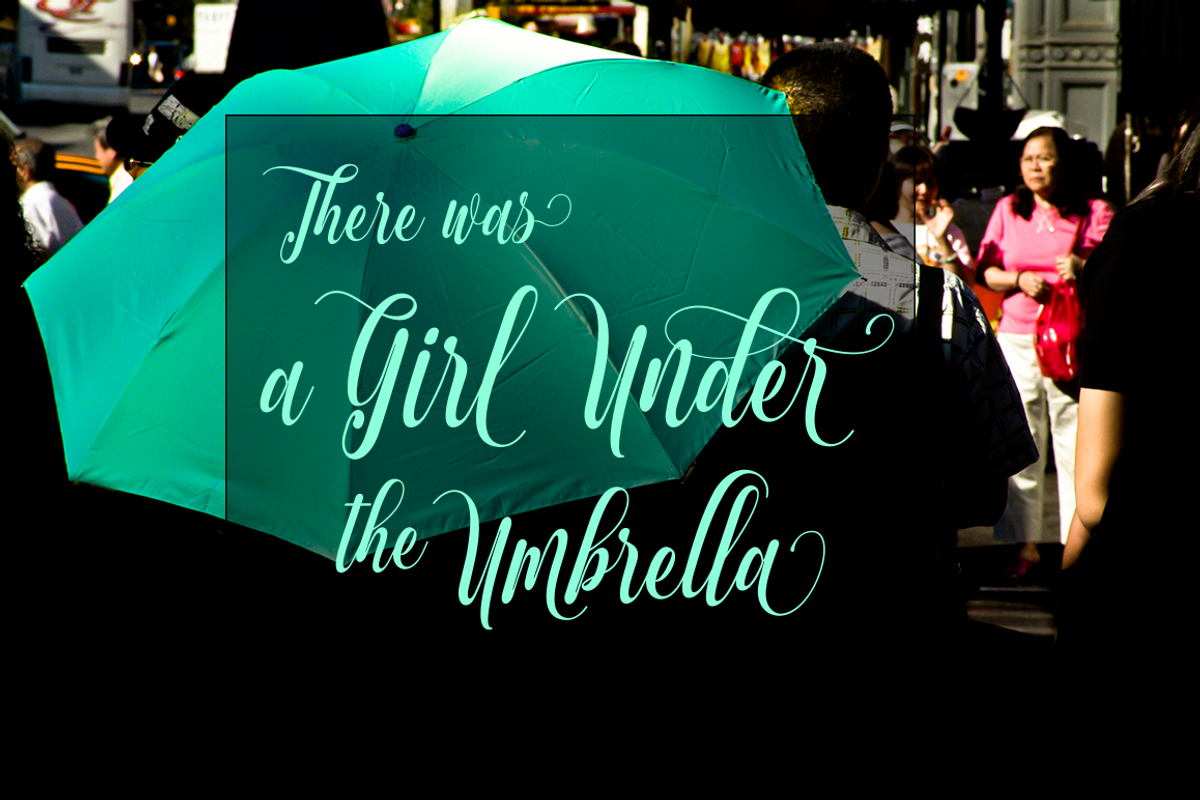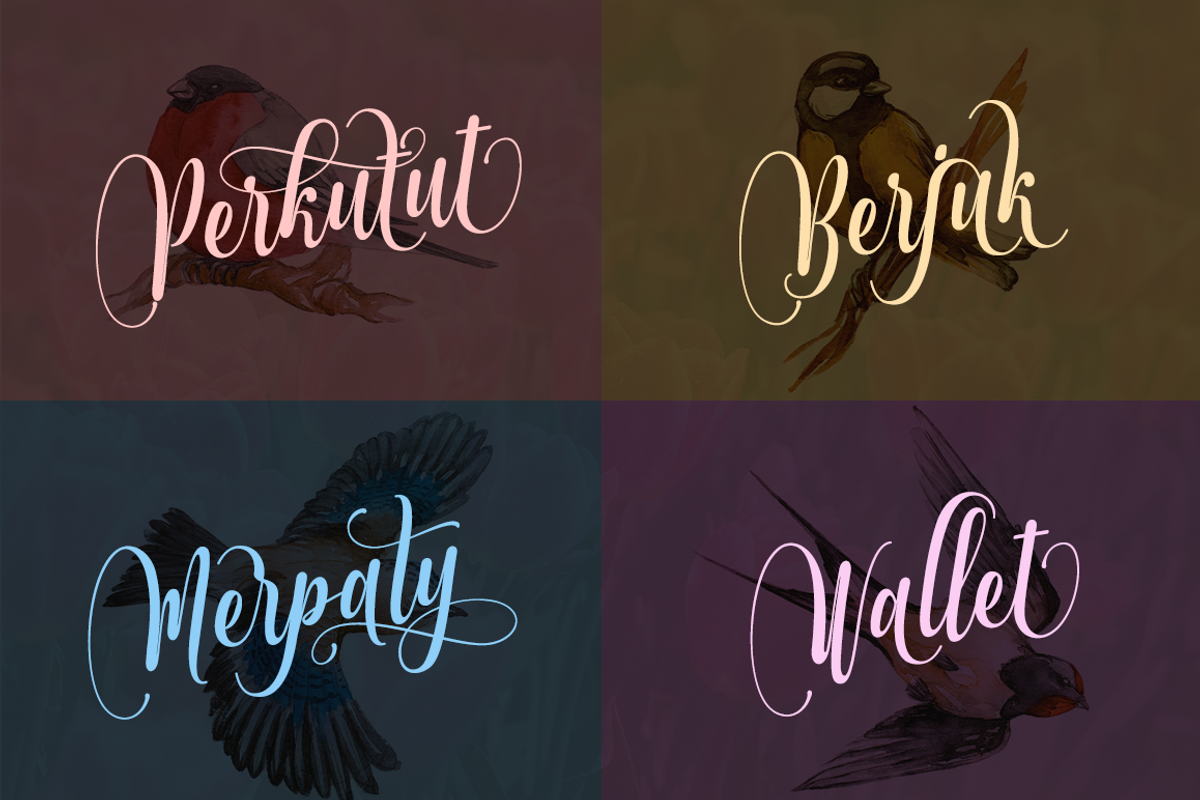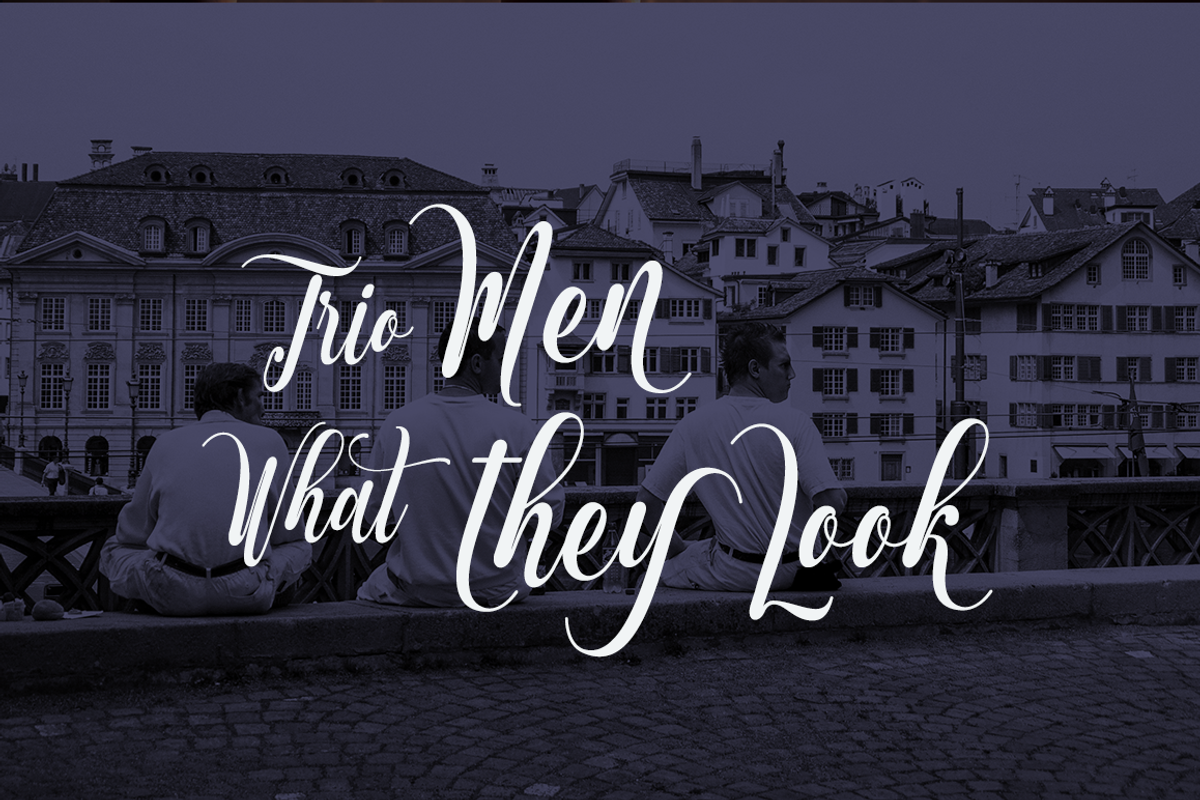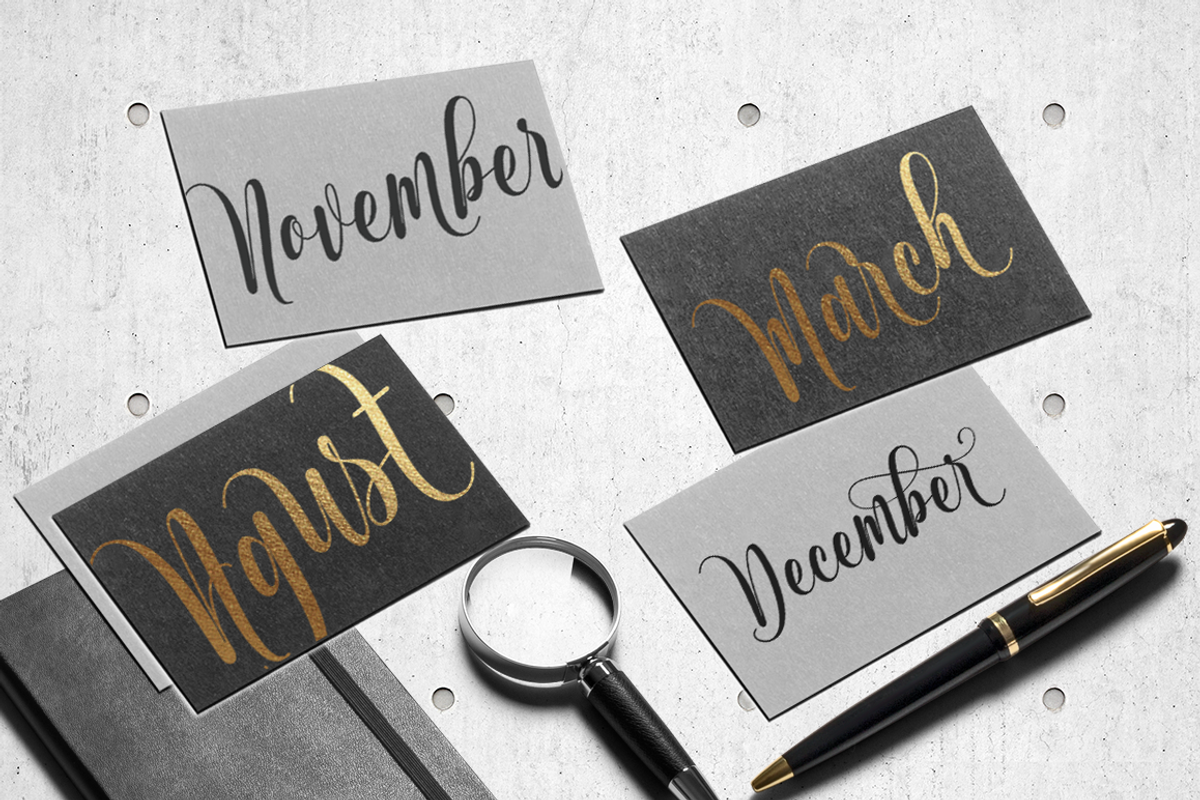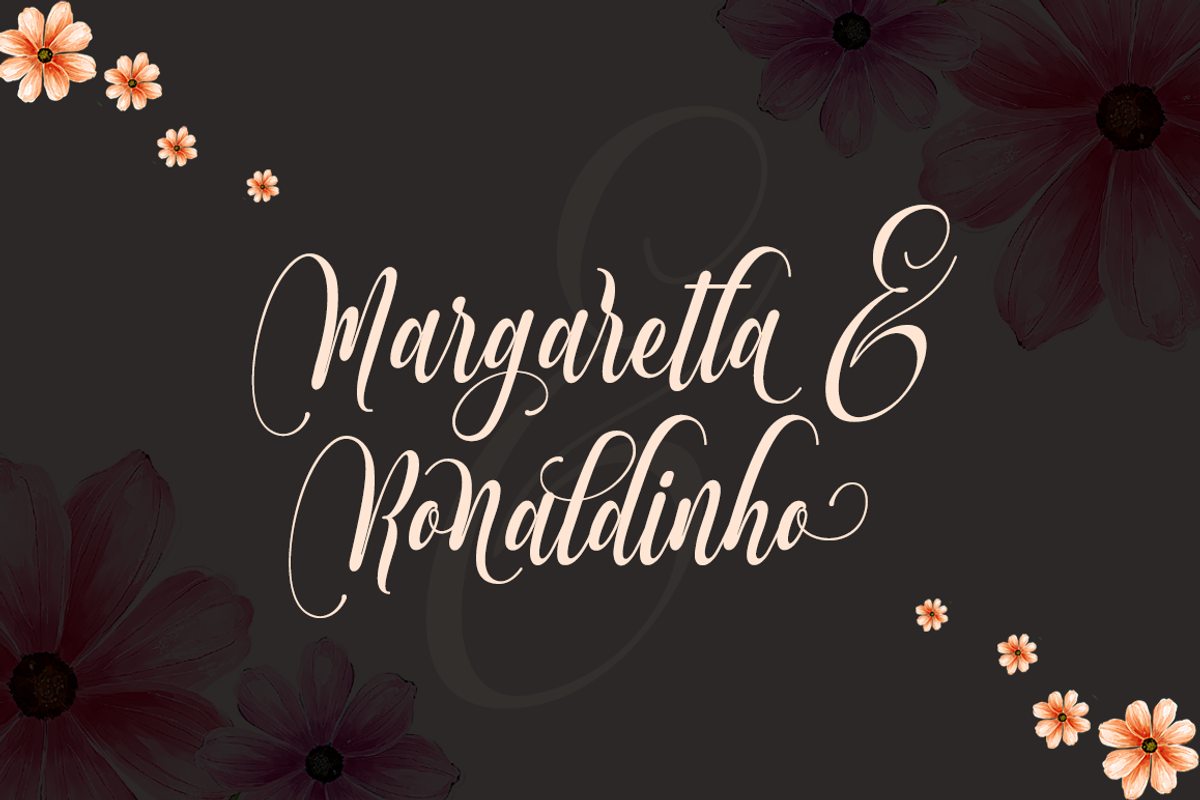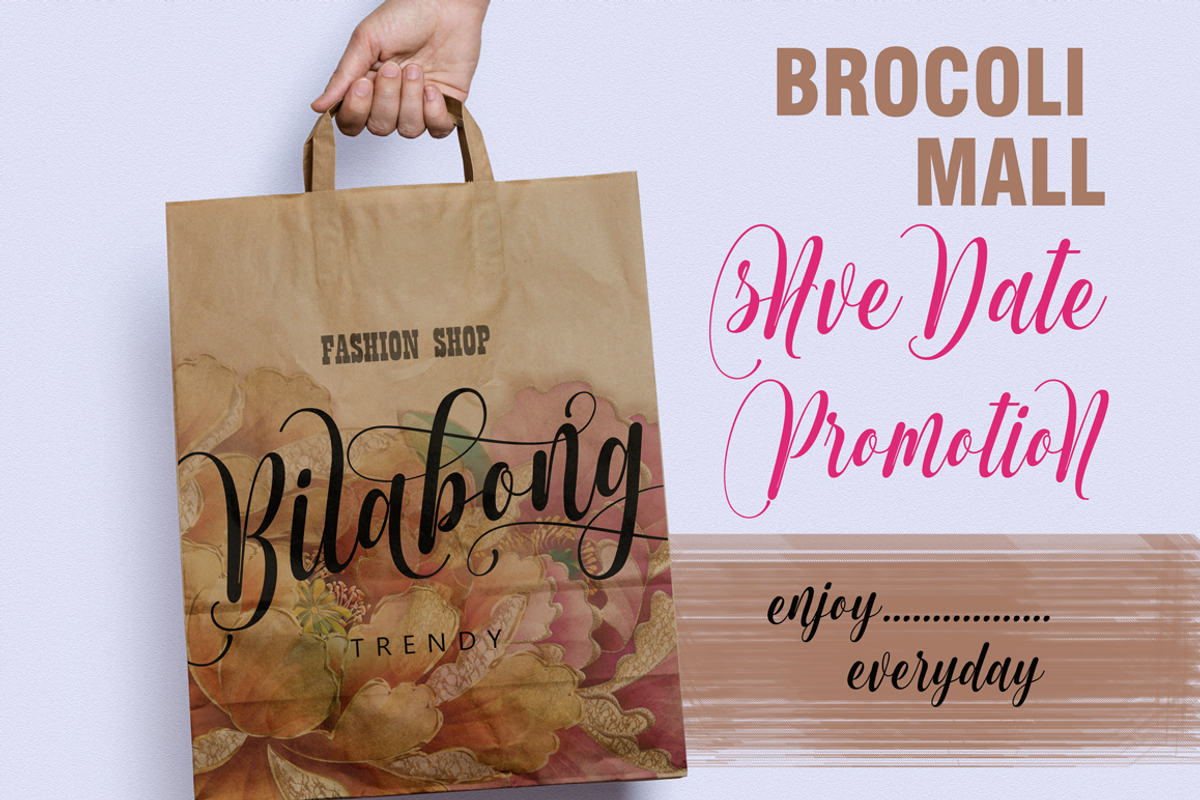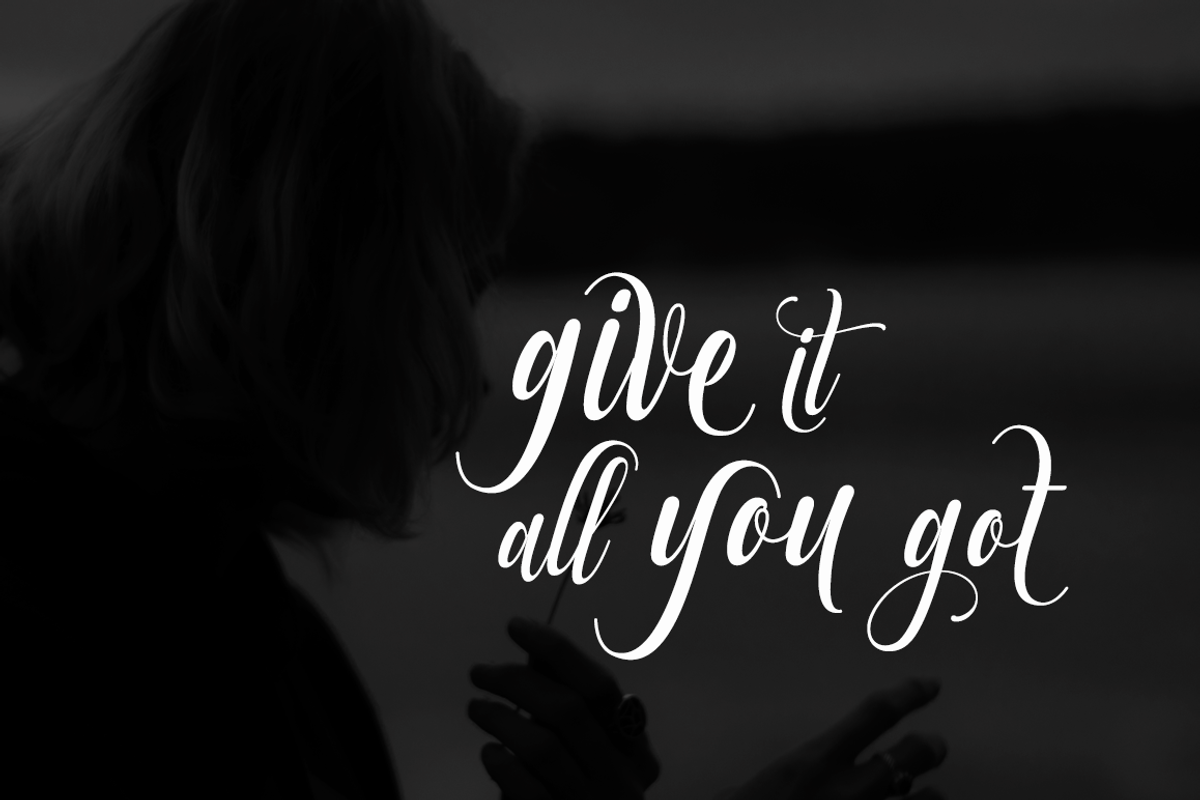
Muthya//Wedding Calligraphy Font
Muthya//Wedding Calligraphy Font by groens is a font selected for branding, posters, packaging, typography.
- The Features of this fonts is: Standart ligatures Discretionary ligatures Swash Alternates Stylistic sets Private Unico
Why Muthya//Wedding Calligraphy Font is worth a look
Muthya//Wedding Calligraphy Font by groens fits naturally into Branding, posters, packaging, typography.